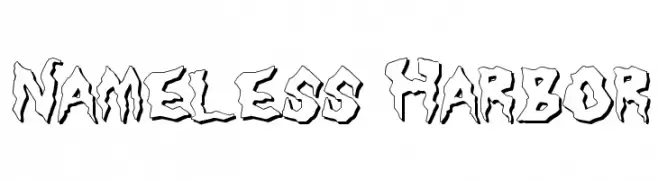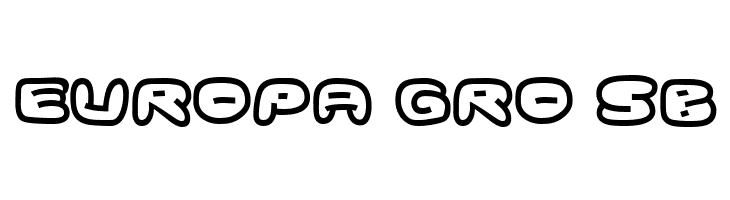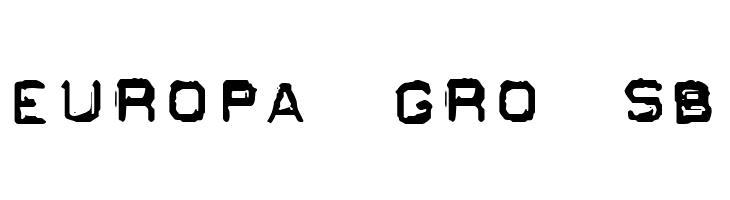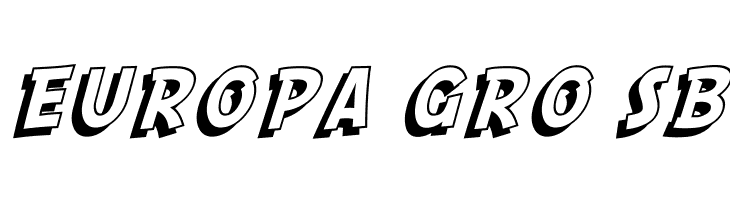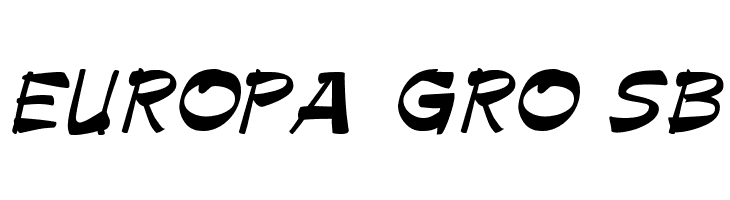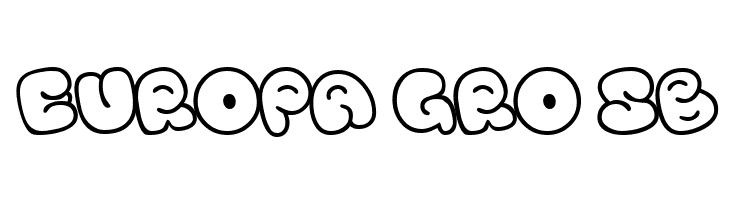
( Fonts by or from www.graffitifonts.net )
A playful, bold font with thick strokes and rounded edges, ideal for comic-style designs.
( Fonts by ShyFonts )
A bold, playful font with a comic book style and shadowed letters.
( Fonts by Cumberland Fontworks - http://www222.pair.com/sjohn/fonts.htm - S. John Ross )
A bold, jagged font with a rugged, hand-carved appearance.
( Fonts by joeBob graff-X )
A bold, graffiti-inspired font with dynamic, hand-drawn strokes.
( Fonts by Alan Carr )
A dynamic, brush-stroke inspired font with bold, artistic characters.
( Fonts by Rich Gast - www.greywolfwebworks.com OFF SITE )
A playful, bubble-like font with bold, rounded characters and a three-dimensional outline.
( Fonts by or from www.graffitifonts.net )
A playful, hollow, outlined font with a cartoon-like, comic book style.